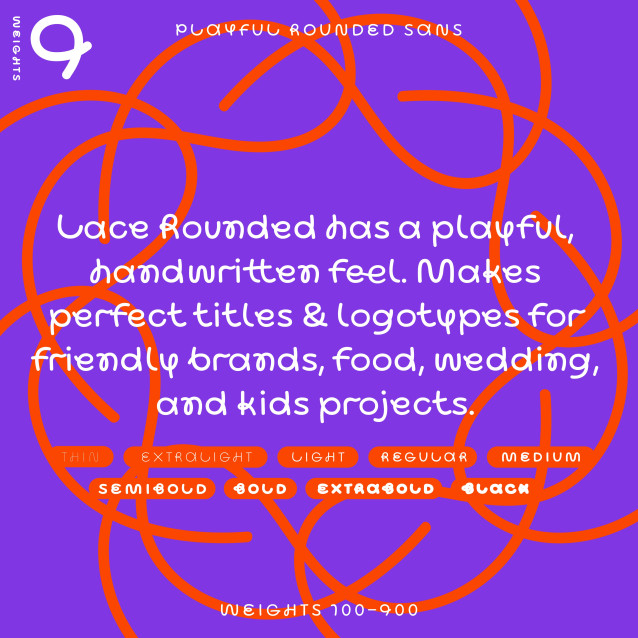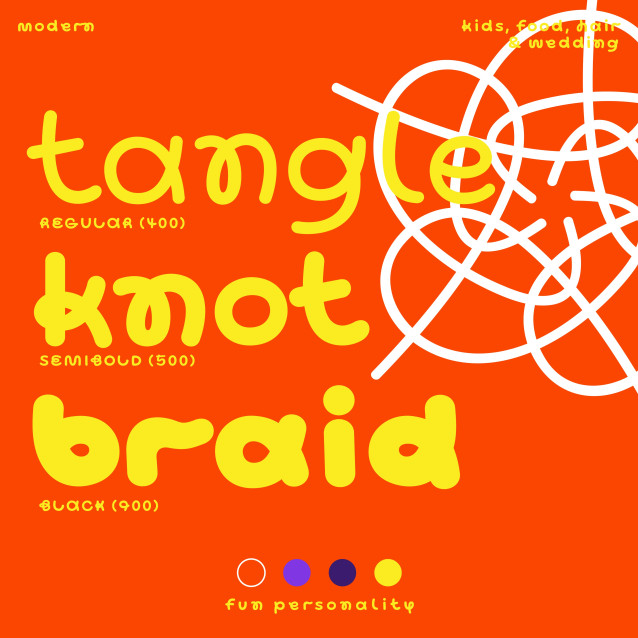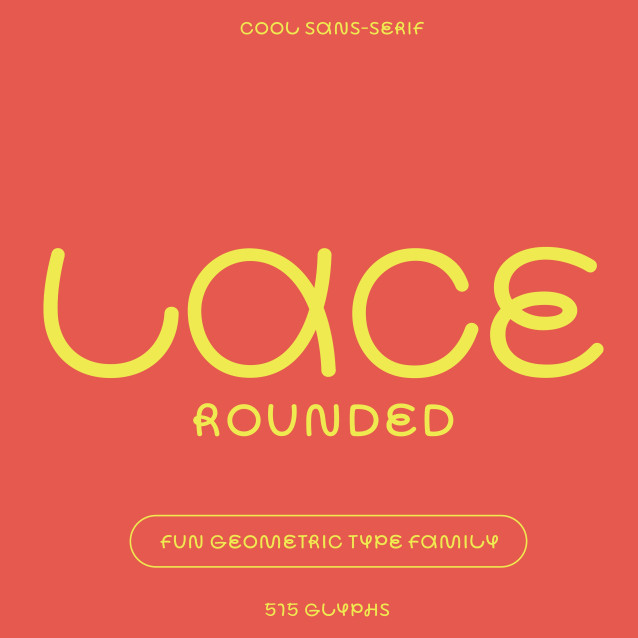
Bauhaus Lace Rnd Display Font
Bauhaus Lace Rnd Display Font is a cute noodle font, part of the bubble font category, and best used for fun branding and design projects. This friendly font is perfect for adding a touch of whimsy and lightheartedness. It features letters, numbers, and symbols in a colorful noodle one-line cursive handwriting.